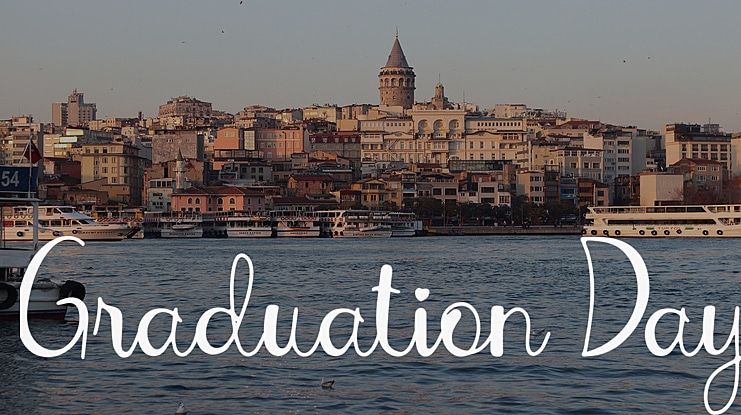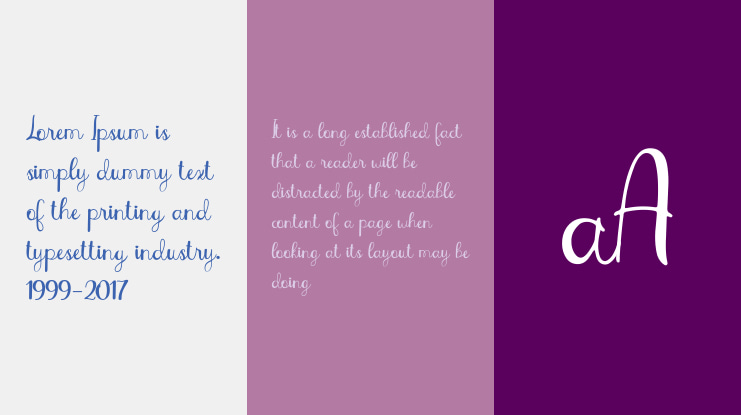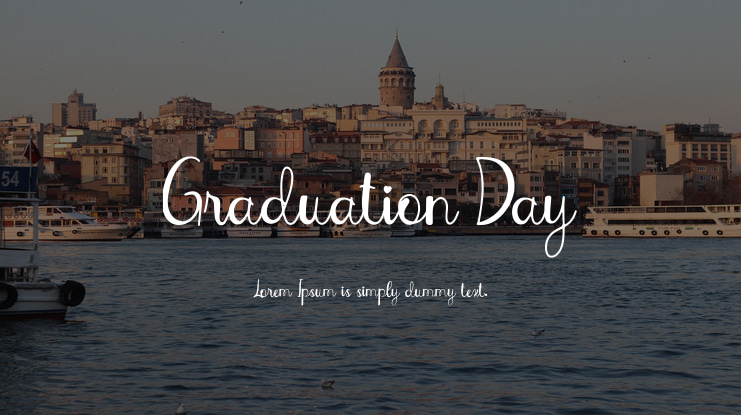
Graduation Day Font
Graduation Day is a beautiful and refined script font. It has a classy, elegant and modern look that can be used for logos, branding, invitations, stationery, wedding designs, social media posts, and much more!